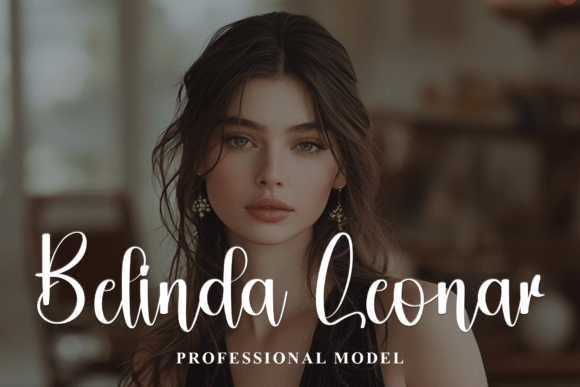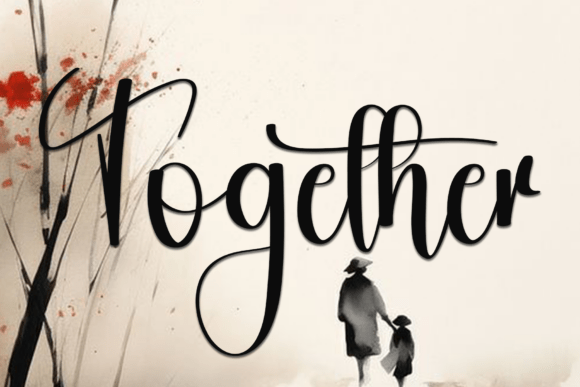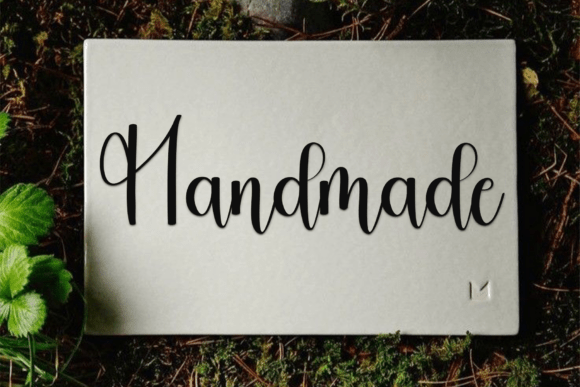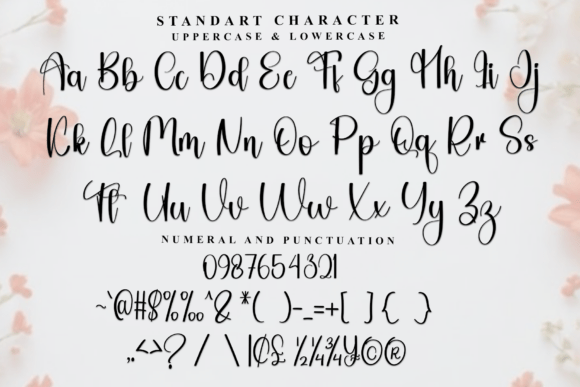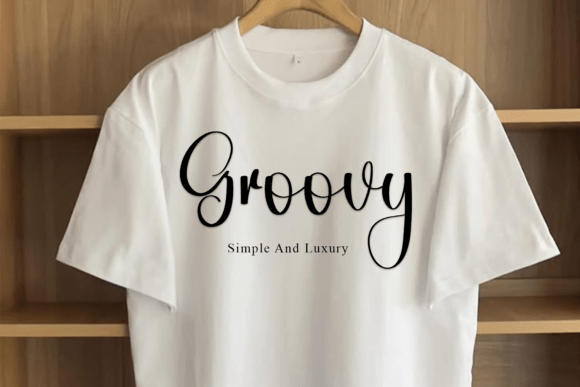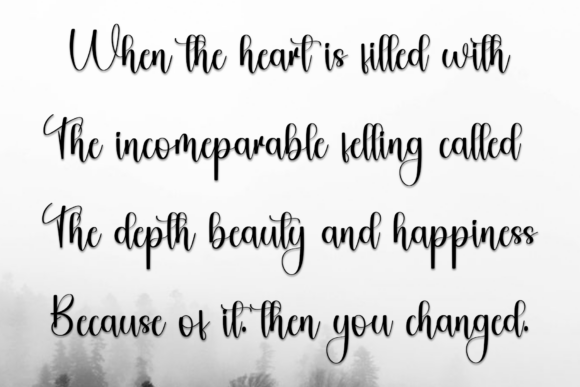
Introducing Father Thinking Font: The Perfect Blend of Casual Charm and Modern Elegance
In the world of typography, fonts play a crucial role in conveying the tone and personality of a brand, product, or message. For designers and crafters, finding the right font can make all the difference in creating visually appealing and effective designs. If you’re looking for a font that combines casual charm with a modern twist, look no further than Father Thinking Font. This beautiful handwritten script font is perfect for a wide range of applications, from branding and wedding invites to quotes and lifestyle blog graphics.
The Characteristics of Father Thinking Font
Father Thinking Font is a unique and stylish handwritten script font that boasts fluid strokes and natural curves, mimicking real handwriting. Its smooth flow and subtle elegance make it perfect for creating heartfelt and visually appealing designs. The font’s casual charm is balanced by a modern twist, making it versatile and suitable for various design projects.
What Makes Father Thinking Font So Special?
So, what sets Father Thinking Font apart from other fonts? Here are a few key features that make it an excellent choice for designers and crafters:
- Fluid strokes and natural curves: The font’s handwritten script style gives it a personal and organic feel, making it perfect for designs that require a touch of warmth and personality.
- Casual charm with a modern twist: Father Thinking Font strikes the perfect balance between casual and modern, making it suitable for a wide range of design projects, from wedding invites to lifestyle blog graphics.
- Smooth flow and subtle elegance: The font’s smooth flow and subtle elegance make it perfect for creating visually appealing designs that convey a sense of sophistication and style.
- Perfect for branding and marketing materials: With its unique and stylish design, Father Thinking Font is ideal for branding and marketing materials, such as logos, business cards, and brochuses.
Use Cases for Father Thinking Font
Father Thinking Font is a versatile font that can be used in a variety of design projects. Here are some use cases where this font truly shines:
- Wedding Invites and Stationery: The font’s elegant and sophisticated design makes it perfect for wedding invites, stationery, and other wedding-related materials.
- Lifestyle Blog Graphics: Father Thinking Font is ideal for lifestyle blog graphics, such as quote graphics, blog post headers, and social media graphics.
- Branding and Marketing Materials: The font’s unique and stylish design makes it perfect for branding and marketing materials, such as logos, business cards, and brochuses.
- Quotes and Typography: Father Thinking Font is perfect for creating beautiful quote graphics, typographic posters, and other typography-related designs.
Tips for Using Father Thinking Font
To get the most out of Father Thinking Font, here are some tips to keep in mind:
- Pair it with a sans-serif font: Pairing Father Thinking Font with a sans-serif font can create a beautiful contrast and add visual interest to your design.
- Use it for headlines and titles: The font’s elegant and sophisticated design makes it perfect for headlines and titles, where you want to make a statement.
- Experiment with different colors: Father Thinking Font looks great in a variety of colors, so don’t be afraid to experiment and find the perfect color scheme for your design.
In conclusion, Father Thinking Font is a beautiful and versatile handwritten script font that blends casual charm with a modern twist. Its fluid strokes and natural curves make it perfect for creating heartfelt and visually appealing designs. With its smooth flow and subtle elegance, this font is ideal for a wide range of design projects, from branding and wedding invites to quotes and lifestyle blog graphics. Whether you’re a designer or crafter, Father Thinking Font is sure to become a valuable addition to your font collection.